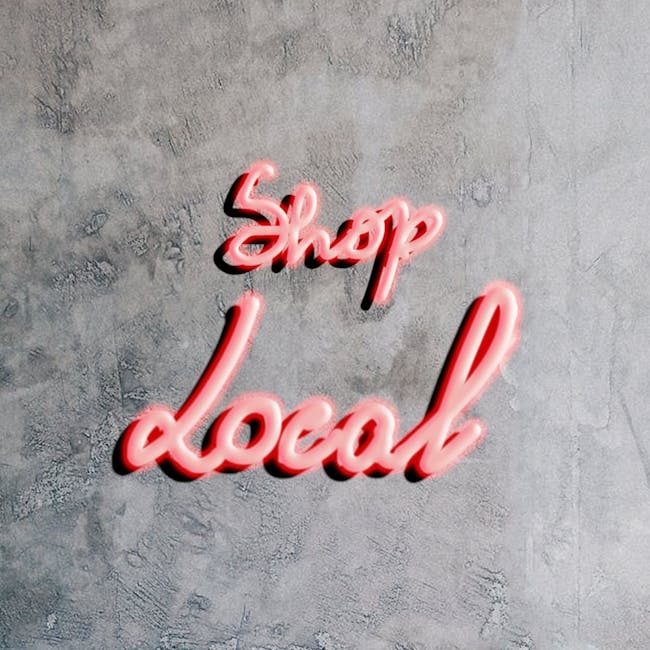
What is Typeface Typography?
Typography is more than just arranging letters on a page; it’s a critical aspect of design that influences how we perceive brands and communicate messages. Typeface typography, in particular, plays a vital role in branding and logo design, setting the tone and personality for a brand’s identity. But why is it so significant, and how do we make the most of it?
Understanding Typeface Typography
Typeface typography is an art that combines the aesthetics of text design with practical communication. It involves selecting and arranging typefaces to make written language legible, readable, and visually appealing. Its impact is profound, as it shapes how audiences interpret and connect with a brand.
Definition of Typeface and Typography
A typeface is a set of characters of the same design, which includes letters, numbers, and symbols. It’s the visual style of the text. On the other hand, typography is the craft of using these typefaces to create meaningful communication. While a typeface refers to the design, typography is how that design is used Understanding typography.
Categories of Typefaces
There’s a wide range of typefaces, each bringing a unique feel to the design:
Serif: These have small lines or embellishments at the ends of characters. They are often seen as traditional and reliable, perfect for print publications.
Sans-Serif: Without the embellishments, sans-serif typefaces are modern and clean, frequently used in digital formats.
Script: Resembling handwriting, script fonts evoke elegance and creativity, often used for decorative purposes.
Display: These are bold and eye-catching, typically used for headlines or branding elements to make a strong statement.
The Psychology of Typeface Typography
Choosing the right typeface isn’t just about aesthetics; it’s about aligning with psychological cues that influence audience perception.
Impact on Brand Identity
Typefaces contribute significantly to brand identity and recognition. They are more than just letters; they’re visual symbols that convey the brand’s voice and tone. A playful brand might choose a whimsical script, while a corporate brand might lean toward a clean sans-serif The Role of Typography in Logo Design.
Choosing the Right Typeface
Selecting the right typeface requires understanding the brand’s message and audience. Considerations include the brand’s personality, the medium in which it will be used, and the emotions it aims to evoke.
Best Practices in Typeface Typography
Implementing effective typeface typography involves adhering to some key principles that enhance both design and communication.
Legibility and Readability
Ensuring that text is easily readable is paramount. This means choosing typefaces that are clear and not overly complex, especially when used in smaller sizes. Legibility directly affects audience engagement and comprehension Typography: 8 Best Practices Every Business Should Know.
Contrast and Hierarchy
Contrast helps distinguish different elements of a design, making it easier for readers to navigate. Hierarchy guides the reader’s eye, using different type sizes and weights to prioritize information. This ensures that the most crucial information stands out.
Consistency Across Branding
Consistency in typeface usage reinforces brand identity. Using the same typefaces across all branding materials helps build recognition and trust. It’s about creating a unified look that audiences can easily associate with the brand Understanding Typeface: The 22 Elements of Typography.
Typeface typography is a powerful tool that goes beyond mere aesthetics. It’s about crafting an identity, evoking emotions, and communicating effectively with audiences. In branding and logo design, the right typeface can make or break the connection with the audience, influencing perception and loyalty. Understanding and utilizing typeface typography’s principles ensure that brands are not only seen but remembered.